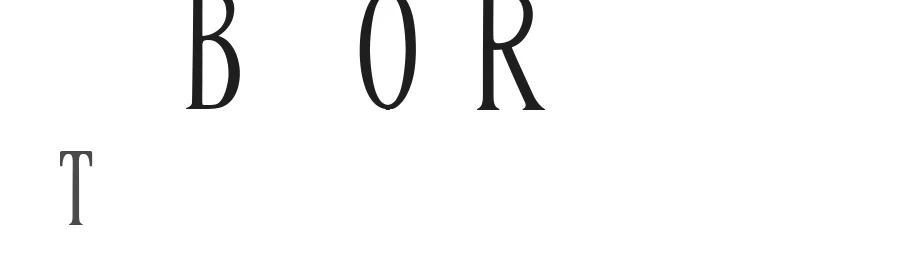
About Brockley Font
Brockley Specifications
Brockley Font is a versatile serif font that works for both headings and body text. Pair it with a contrasting sans-serif or slab serif font to add visual interest and a clear distinction between titles and body copy.